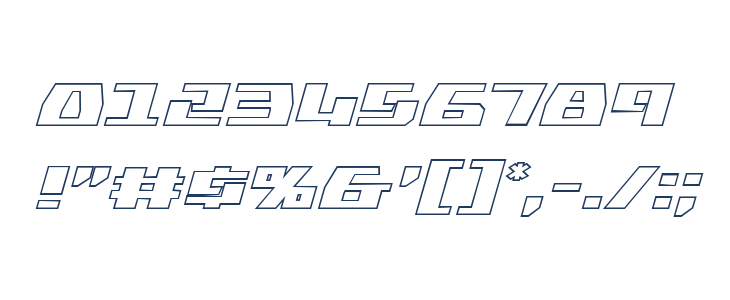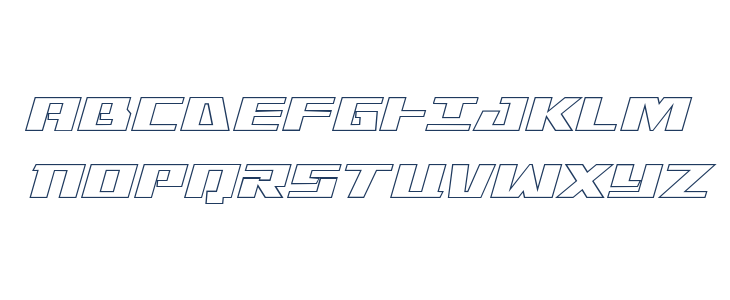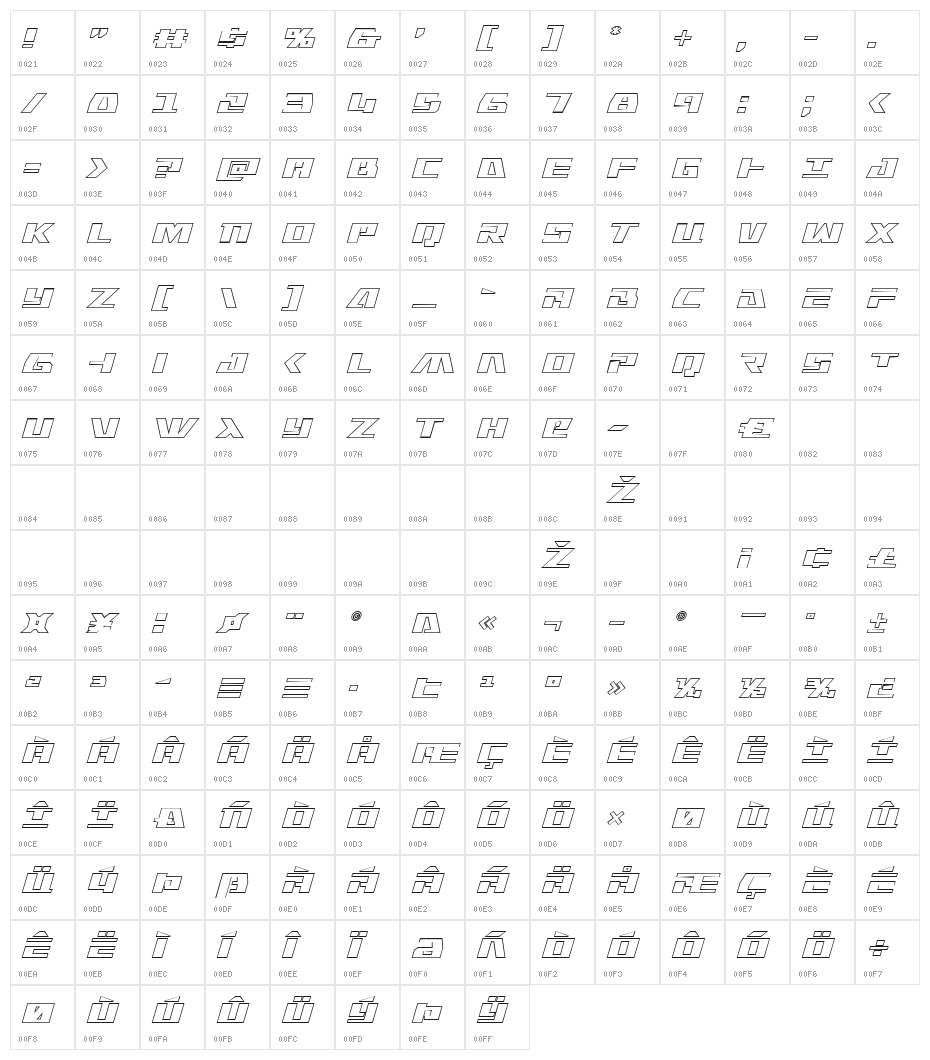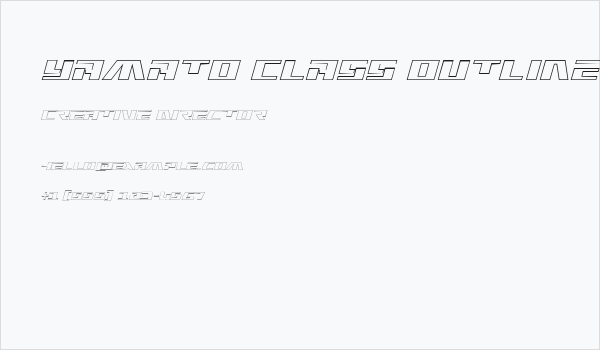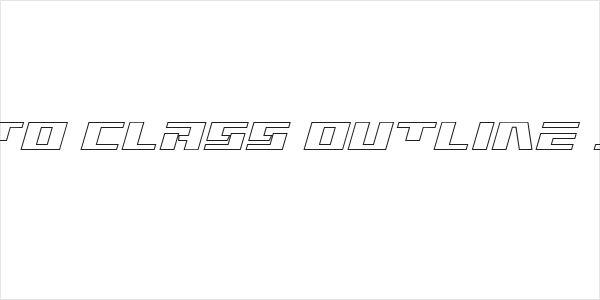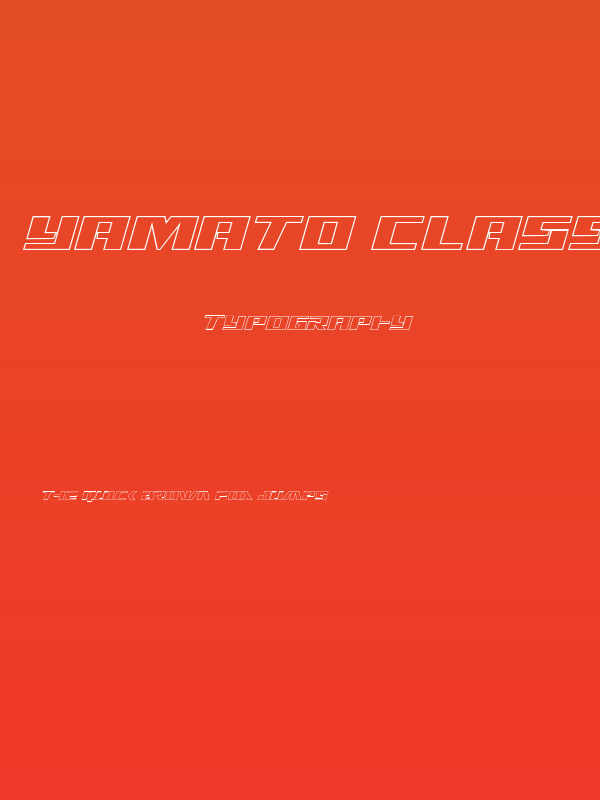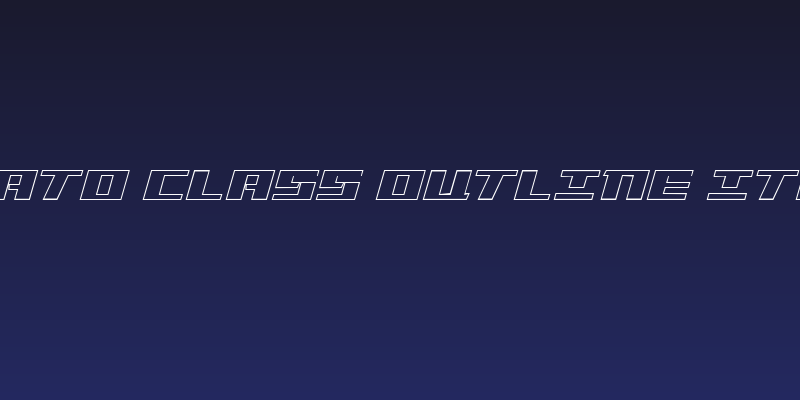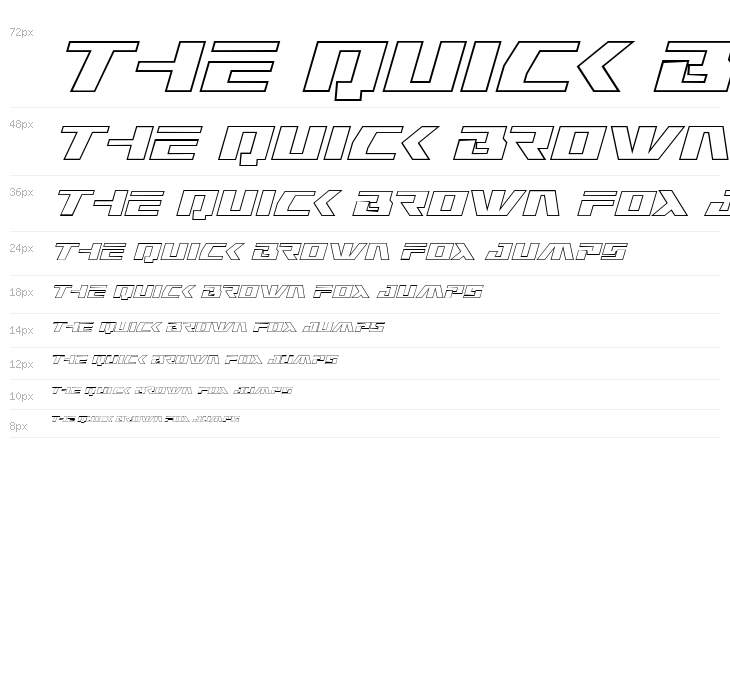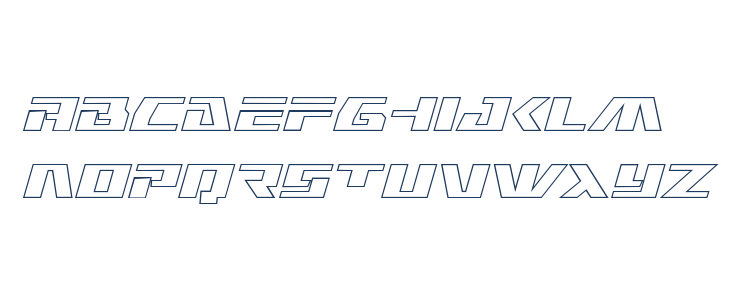
Yamato Class Outline Italic Font
Yamato Class Outline Italic Description
A geometric, angular outline typeface with a futuristic and italicized slant. The characters are constructed from straight lines and sharp corners, giving a technical and mechanical appearance. The font is monoline with no variation in stroke width and features a consistent, forward-leaning italic angle throughout.
| Overall Style | Futuristic, Decorative, Technical |
| Use Case | Headlines, Logos, Posters, Display text |
| Proposed Projects | Tech branding, sci-fi posters, video game titles, event graphics, digital interfaces. |